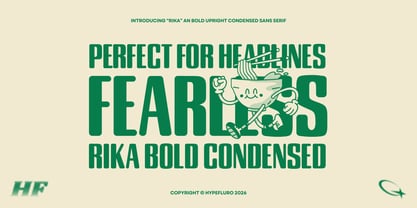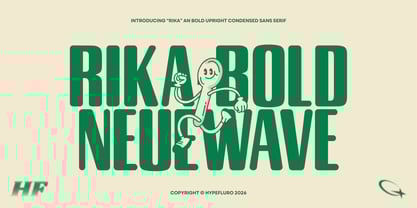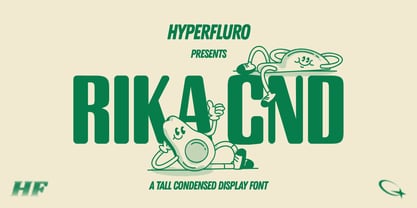
Rika™
von HyperFluro
Die Schriftfamilie Rika wurde von Alex Haigh entworfen und von HyperFluro veröffentlicht. Rika enthält 1 Stile.
Rika is a combination of supposedly male and female characteristics, combining together to create a beautifully realised, high impact, condensed typeface. The tall but well-built characters are softened with smooth curves and a mixing in of thin lines, so that the sharpness of many condensed fonts is brought under control. Suave in its application, Rika is all professionalism and elegant showmanship, great for both headlines and text. Rika comes with support for a number of languages, as well as specifically designed glyphs, and its uses might be considered limitless.
Designer: Alex Haigh
Herausgeber: HyperFluro
Foundry: HyperFluro
Eigentümer des Designs: HyperFluro